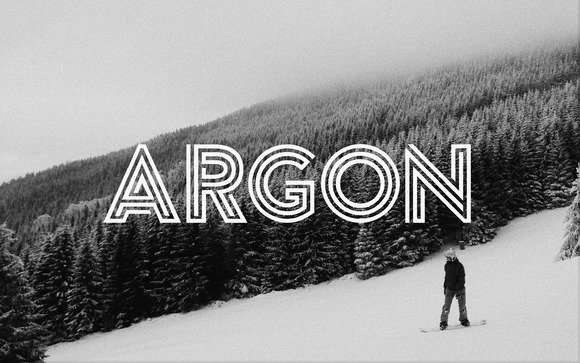
Argon font
Argon is a unique free font built on three tick lines, ideal for headlines and graphic design. The free version only includes letters. Designed and released by Tom Anders Watkins.